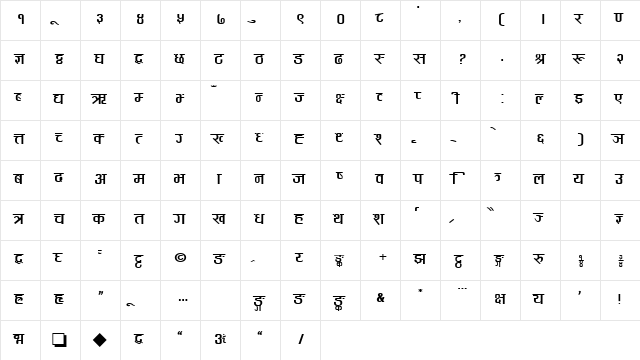
Pagal Regular
Design Context for Pagal Typeface
Pagal takes a measured approach to typography — its balanced proportions and neutral character make it a reliable workhorse for both digital and print work.
Pro Tip: Pair Pagal with a font of contrasting weight or personality to build a more expressive typographic hierarchy.